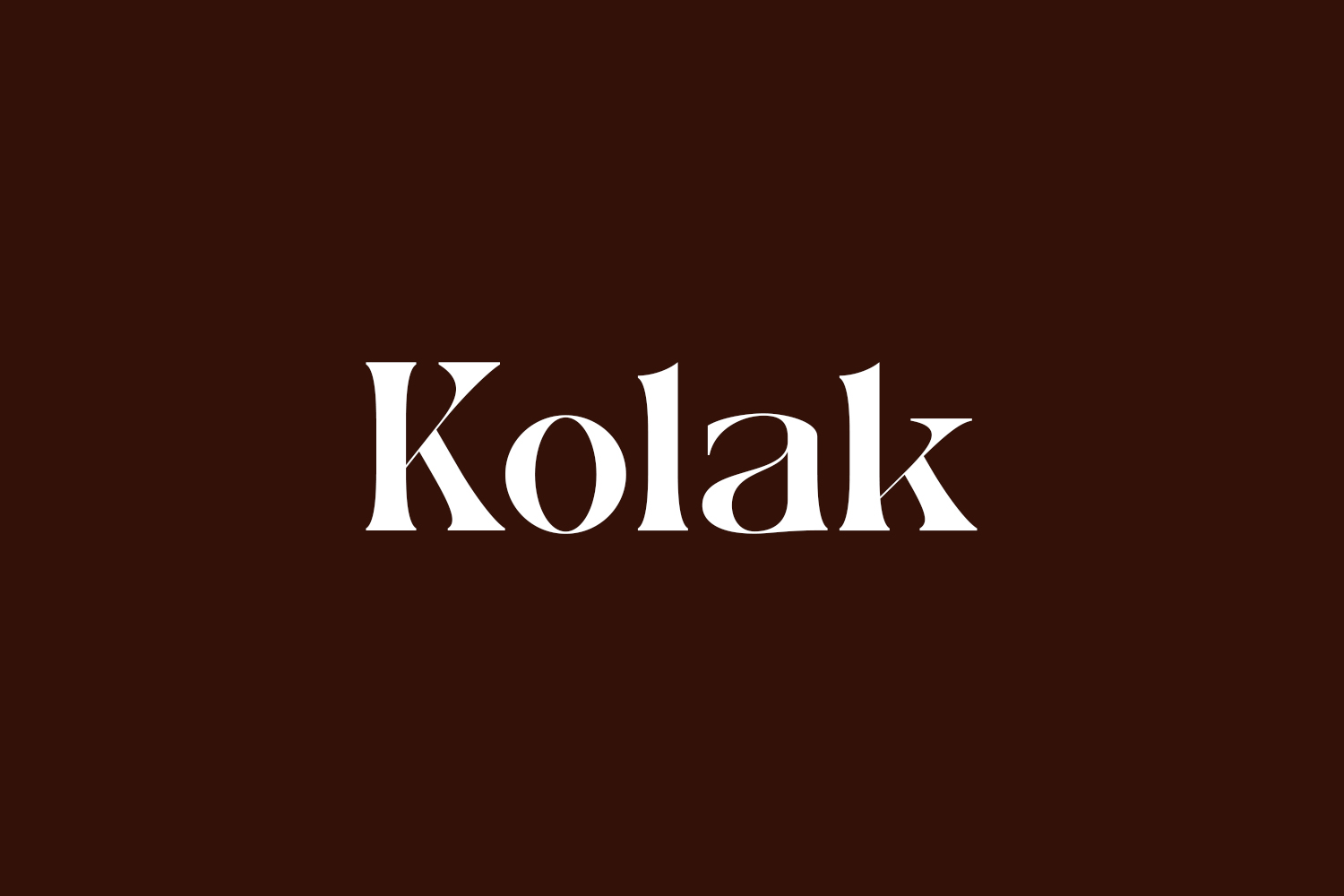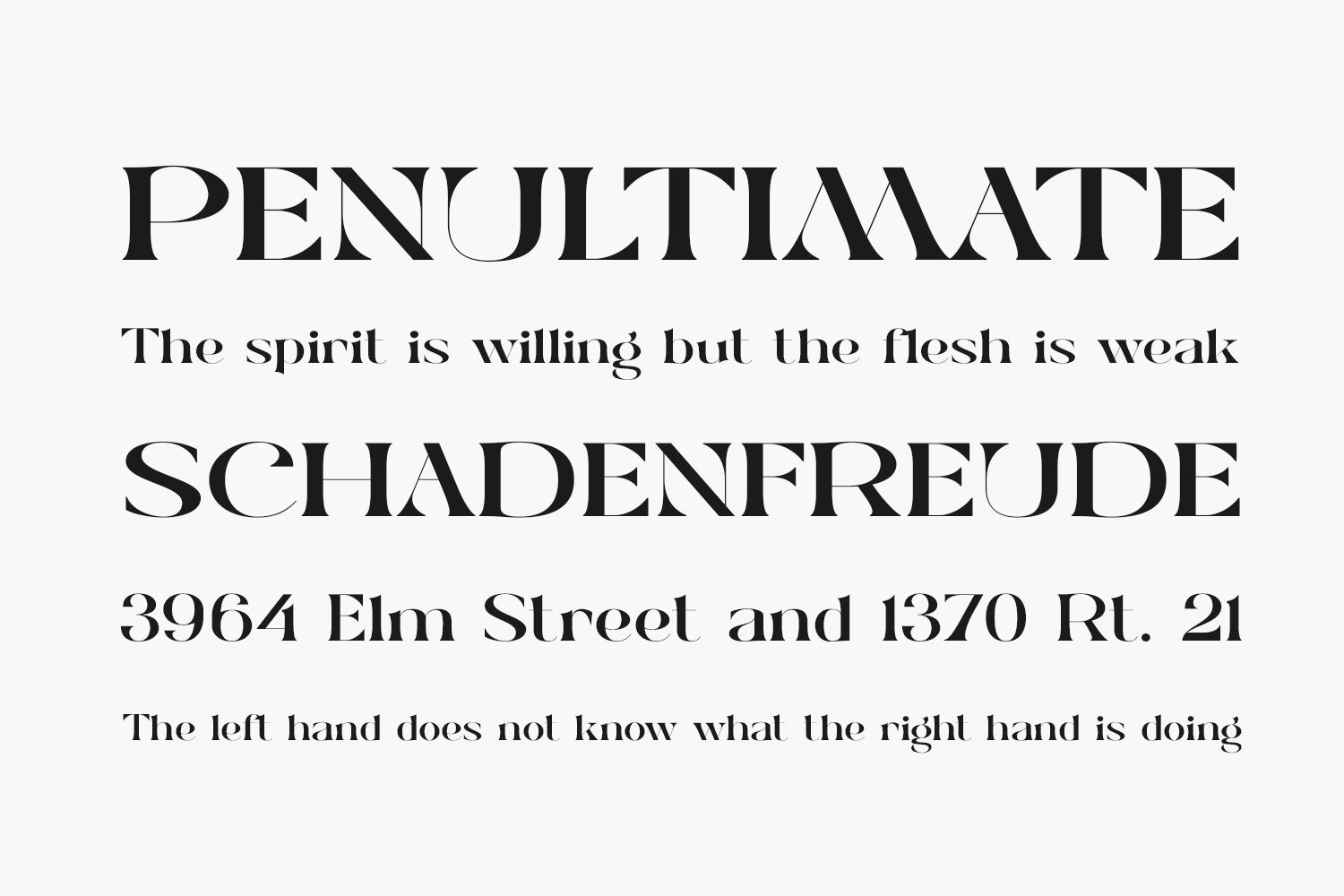
Introducing Kolak Free Font, a refined and sophisticated serif typeface exuding both modernity and nostalgia. Ideal for logos, magazines, and social media, it seamlessly blends elegance with contemporary flair. This font is meticulously crafted to complement your designs with its chic and stylish appeal. Elevate your next project with Kolak and experience the perfect fusion of classic charm and modern sophistication. Download the font for free if you need it for personal use or purchase the full version for commercial use.